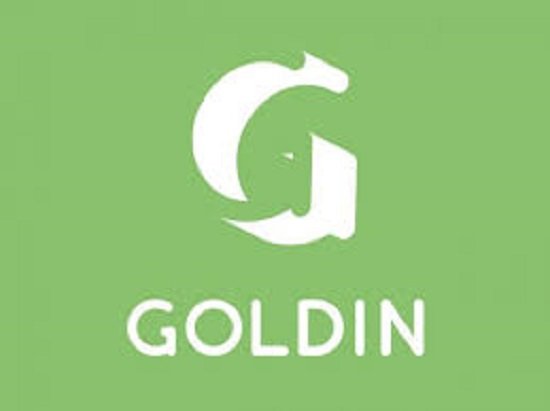
Goldin Typeface
Today’s featured freebie is Goldin, a free typeface designed by Fabian Korn, a graphic designer from Switzerland. Goldin includes only uppercase letters and come with two font weights (light and regular).